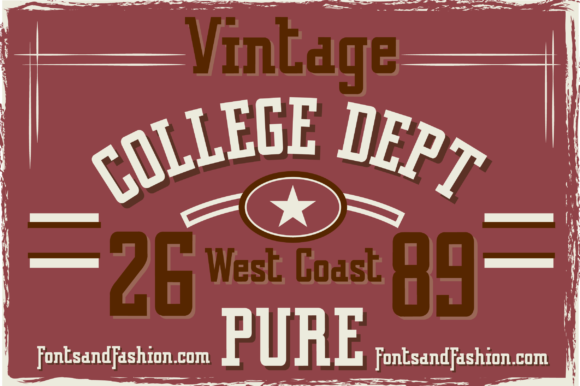
Looking for a clean, stylish font that can make your designs stand out? Look no further than Vintage College Dept Pure Font! This slab serif font is perfect for those looking for a font that combines the classic look of university and high school sportswear lettering with a modern twist.
Created by the talented team at Fontsandfashion, Vintage College Dept Pure Font is the perfect choice for anyone looking to add a sporty and decisive character to their designs. With its clean lines and stylish curves, this font is perfect for everything from college football jerseys to athletic apparel.
But Vintage College Dept Pure Font isn't just for sports-themed designs. Its versatile style makes it perfect for a wide range of design projects, from posters and flyers to logos and branding materials. And with its quirky and playful character, this font is sure to catch the eye of anyone who sees it.
So why wait? Download Vintage College Dept Pure Font today and see for yourself why it's quickly becoming one of the most popular slab serif fonts around. With its clean look, sporty character, and versatile style, this font is sure to elevate any design project you have in mind.